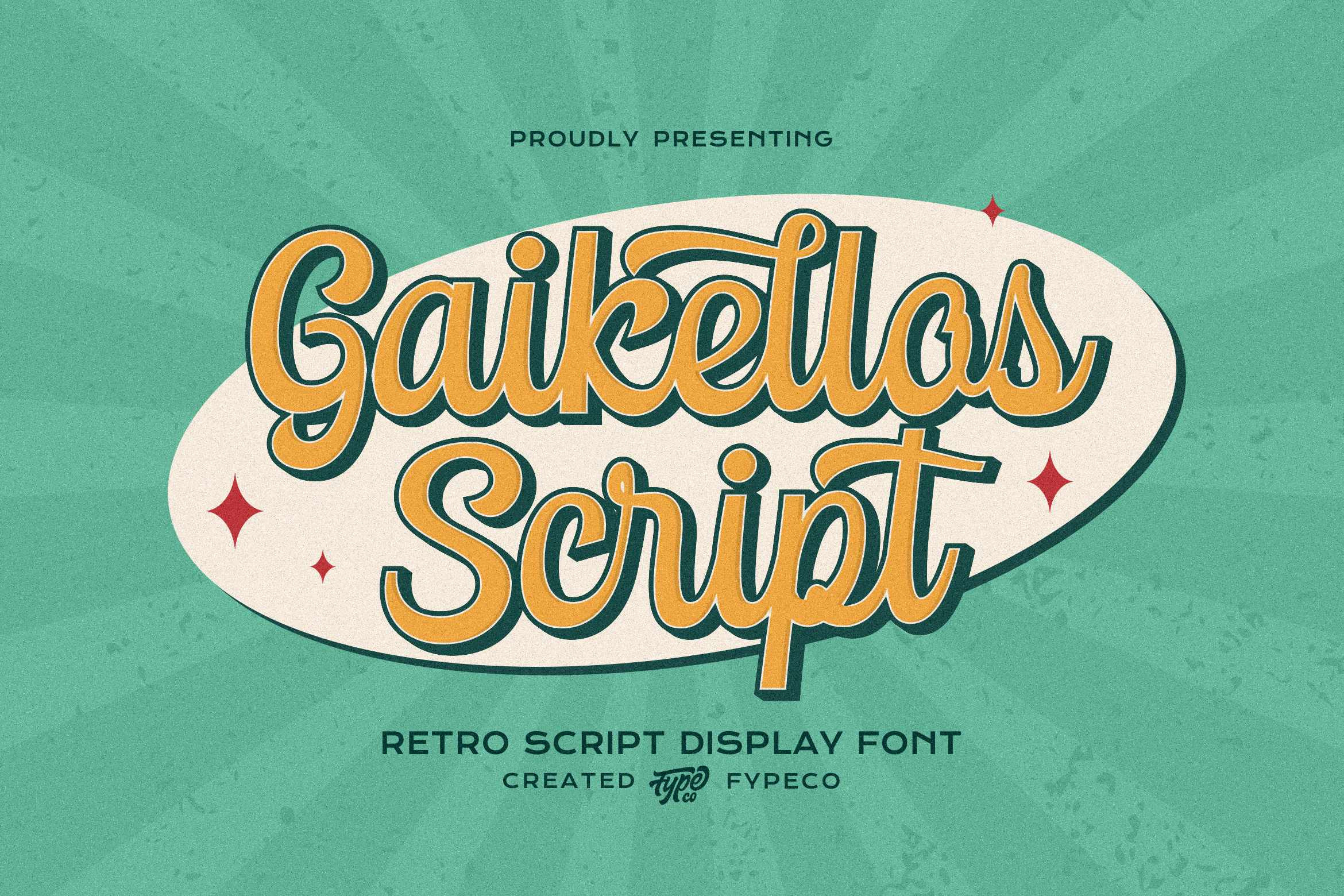
Gaikellos Script - Retro Script Font
Gaikellos Script is a script display font with a charming touch of retro style. OpenType features with Stylistic Alternates in some characters that allows you to mix and match pairs of letters to fit your design. This handmade font is wonderful to use in logos, designs, labels, clothes or anything you want.